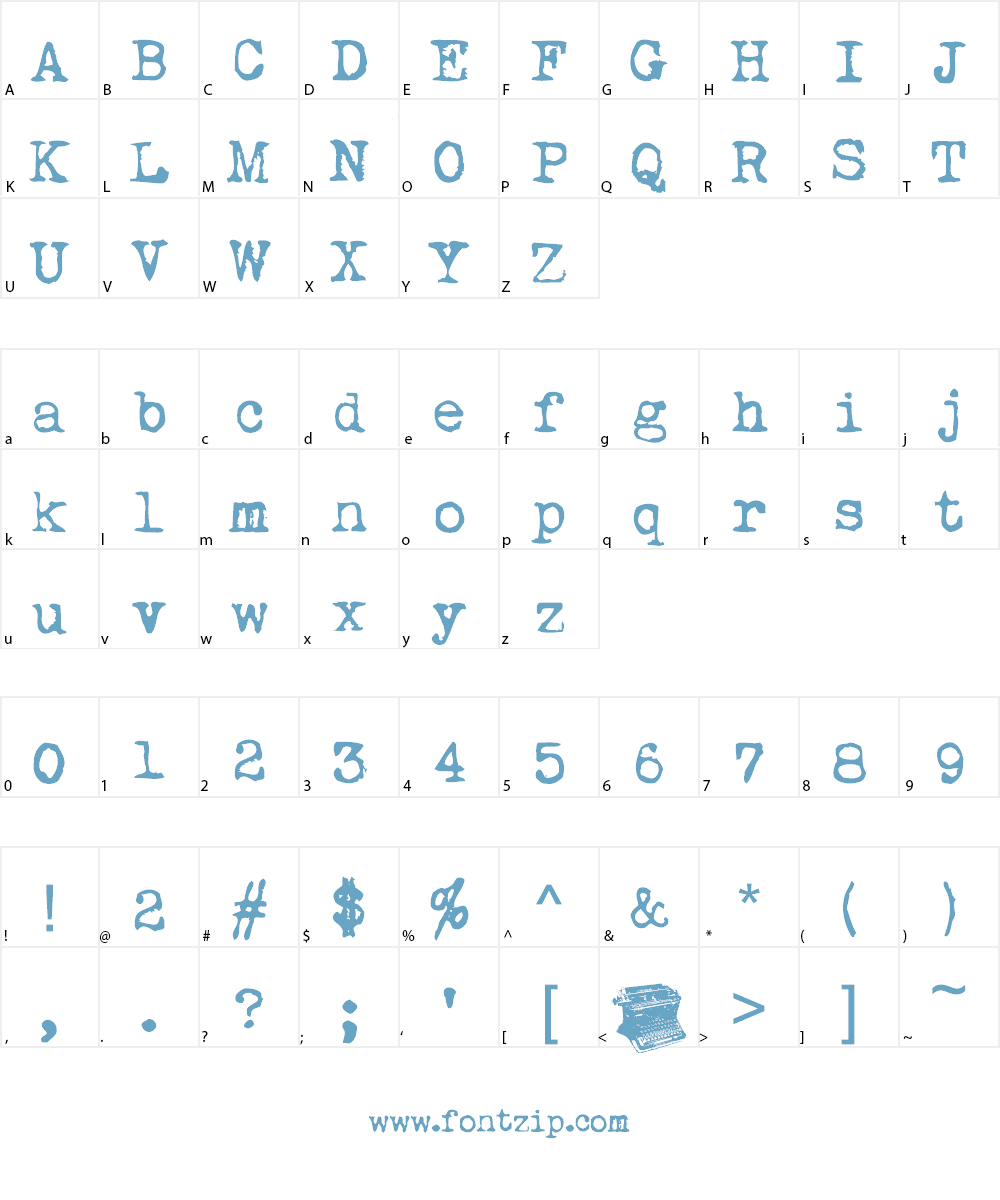
A typeface of my vintage Underwood portable typewriter. Only contains characters that exist on the real typewriter. Oh, and it needed to be cleaned BAD.